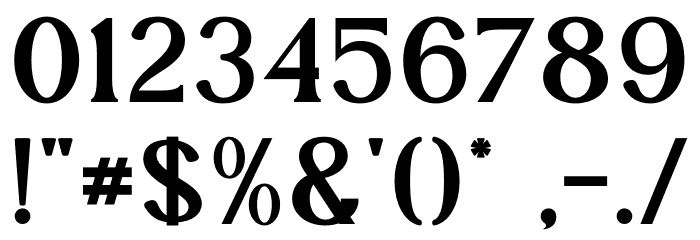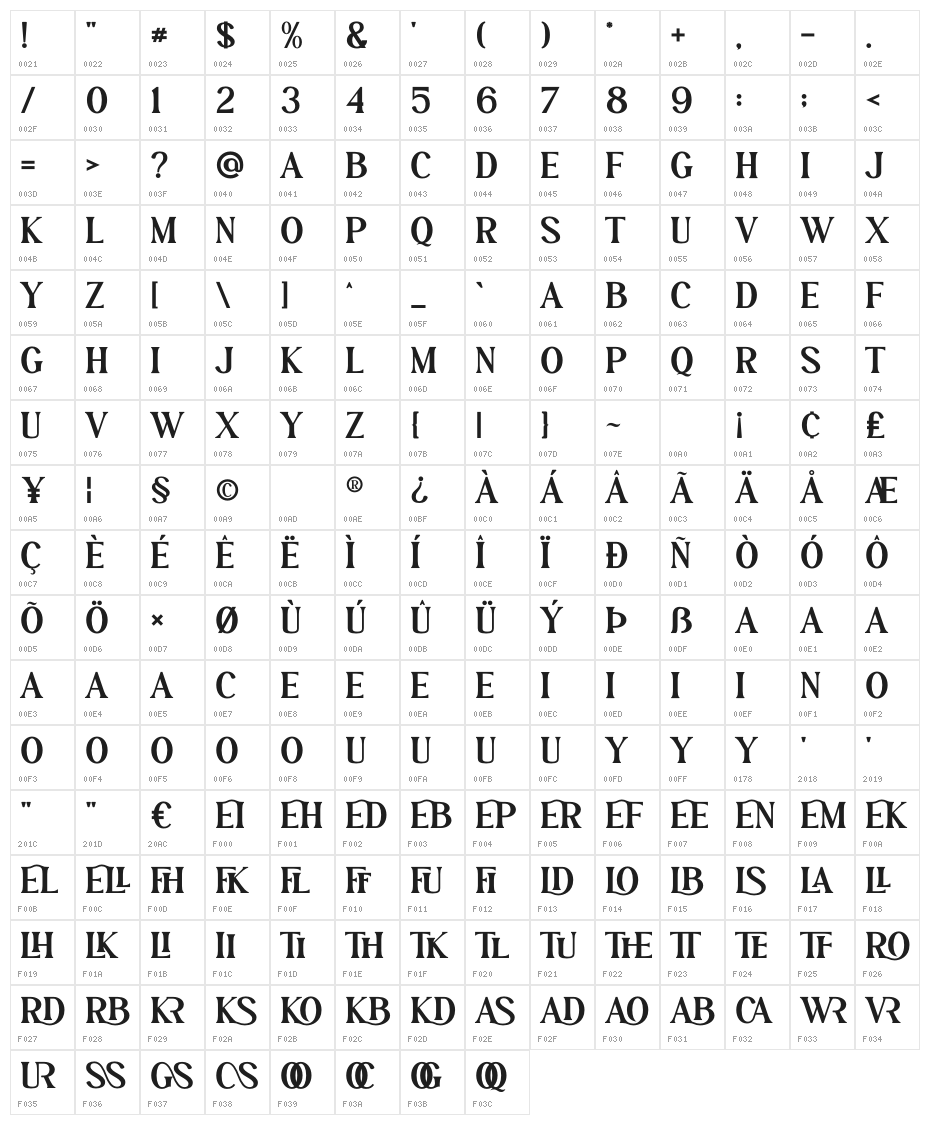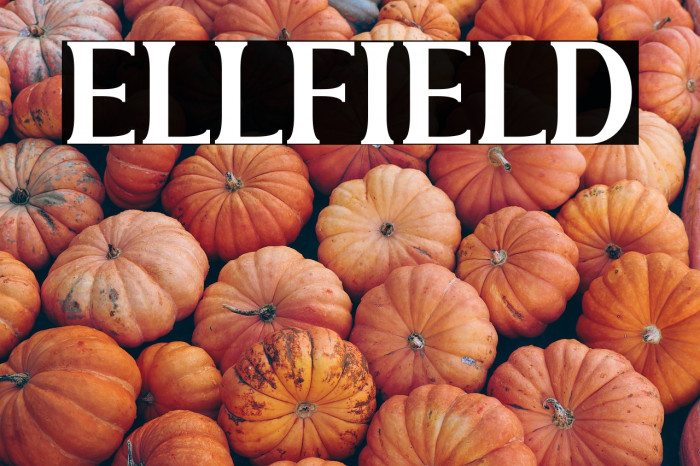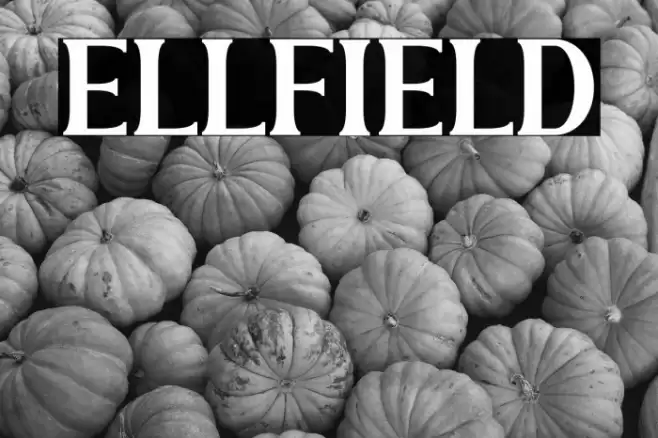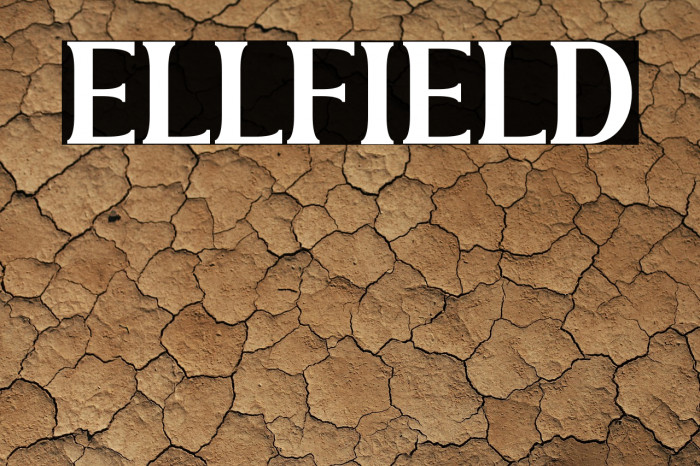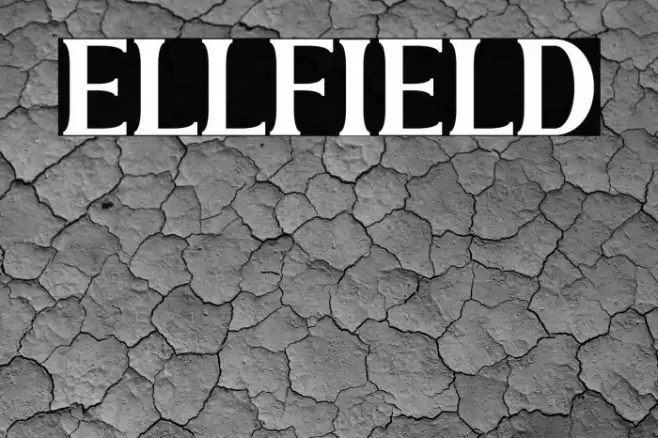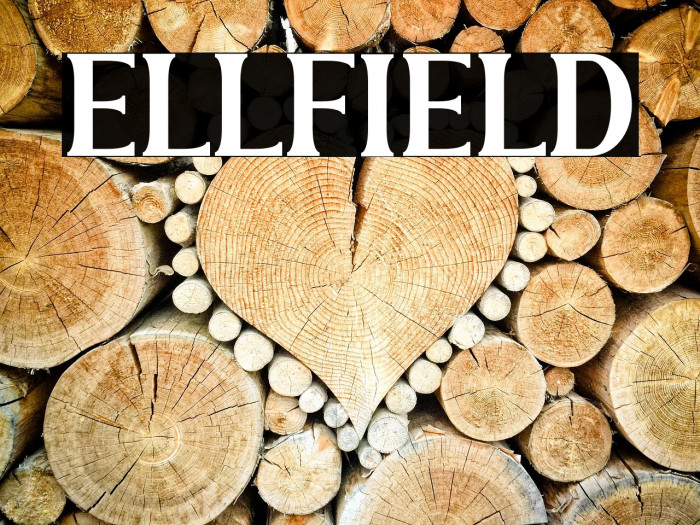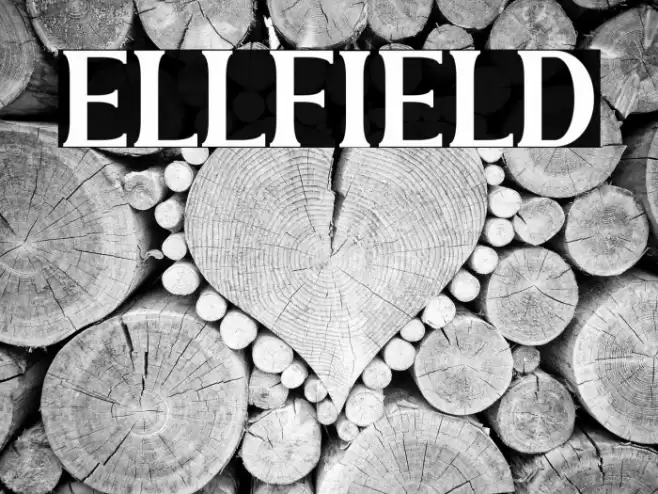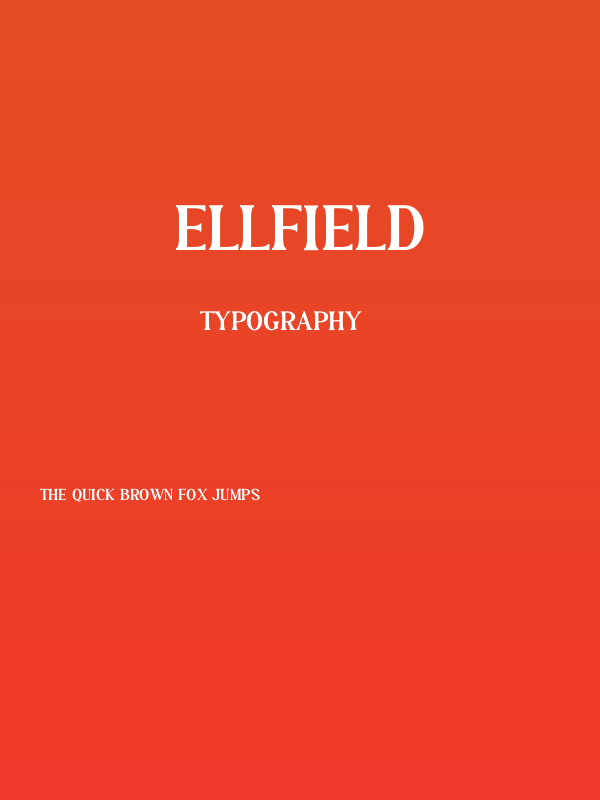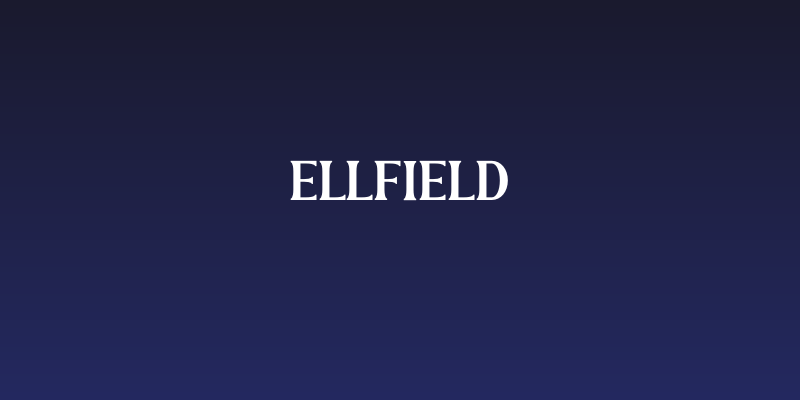
ELLFIELD Font
ELLFIELD Description
This font exudes a classic and authoritative presence with its bold and structured serif design. The characters are well-defined with sharp serifs that enhance readability and convey a sense of tradition and reliability. The uppercase letters are particularly striking, with a strong vertical emphasis that commands attention. The numerals are equally robust, maintaining the font's overall consistency and balance. Special characters are crafted with precision, ensuring they integrate seamlessly with the alphabetic characters. This font is ideal for projects that require a formal and professional tone, such as editorial layouts, book covers, and corporate branding.
| Proposed Projects | Editorial layouts, book covers, corporate branding, formal invitations. |